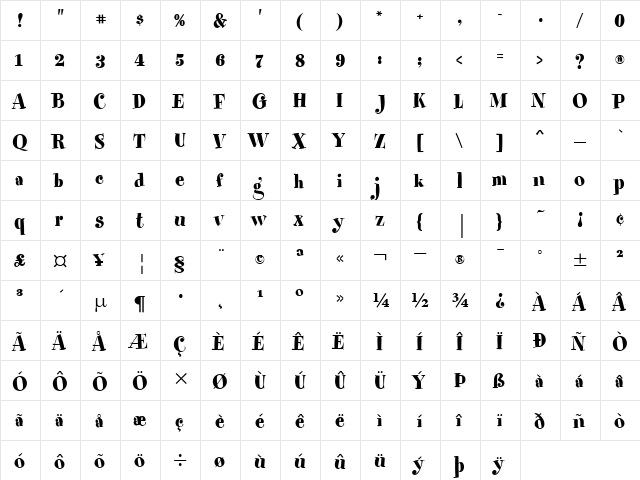
SpumoniLP Roman
Design Context for SpumoniLP Typeface
SpumoniLP is a composed and adaptable typeface that performs quietly and consistently across a wide range of design contexts.